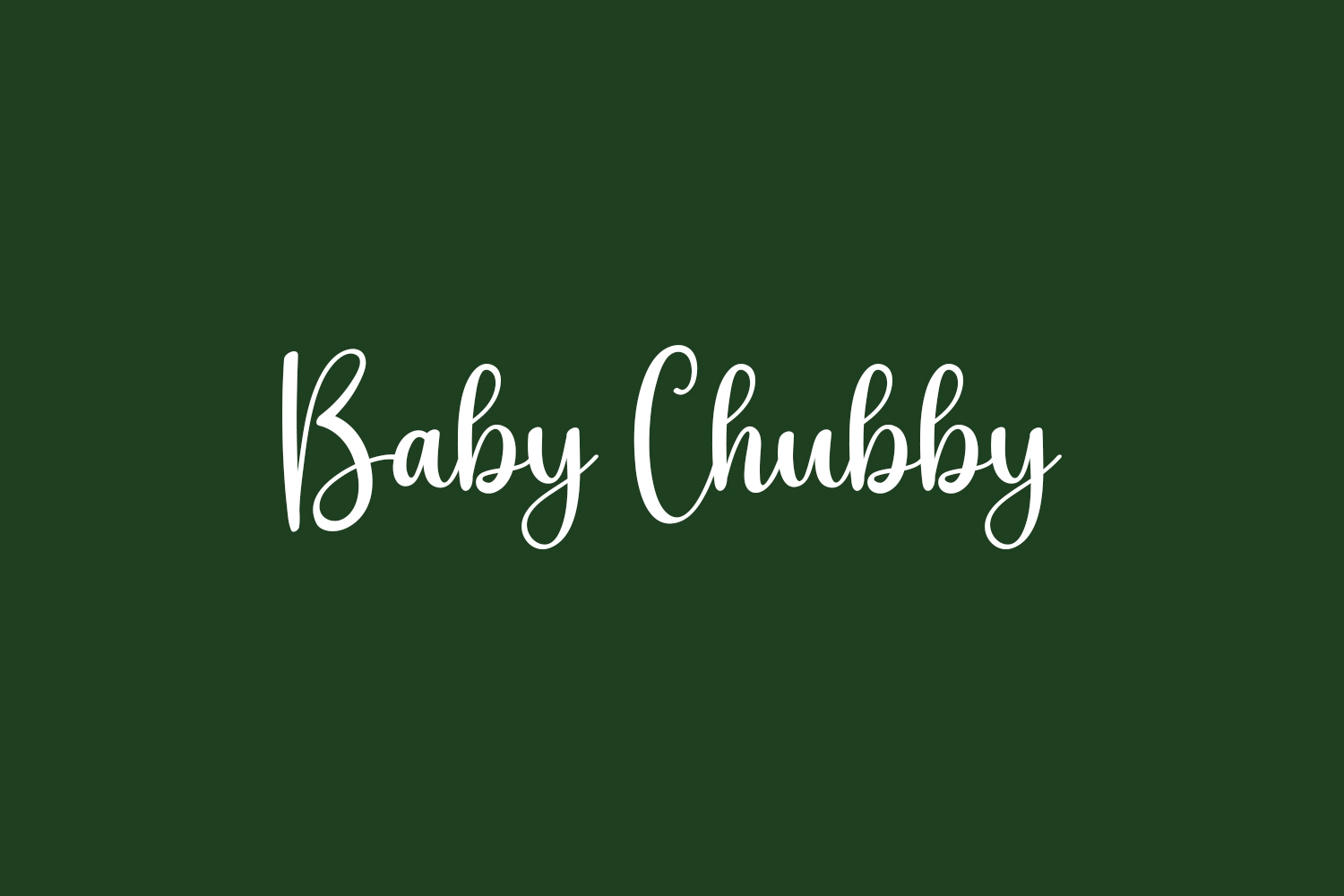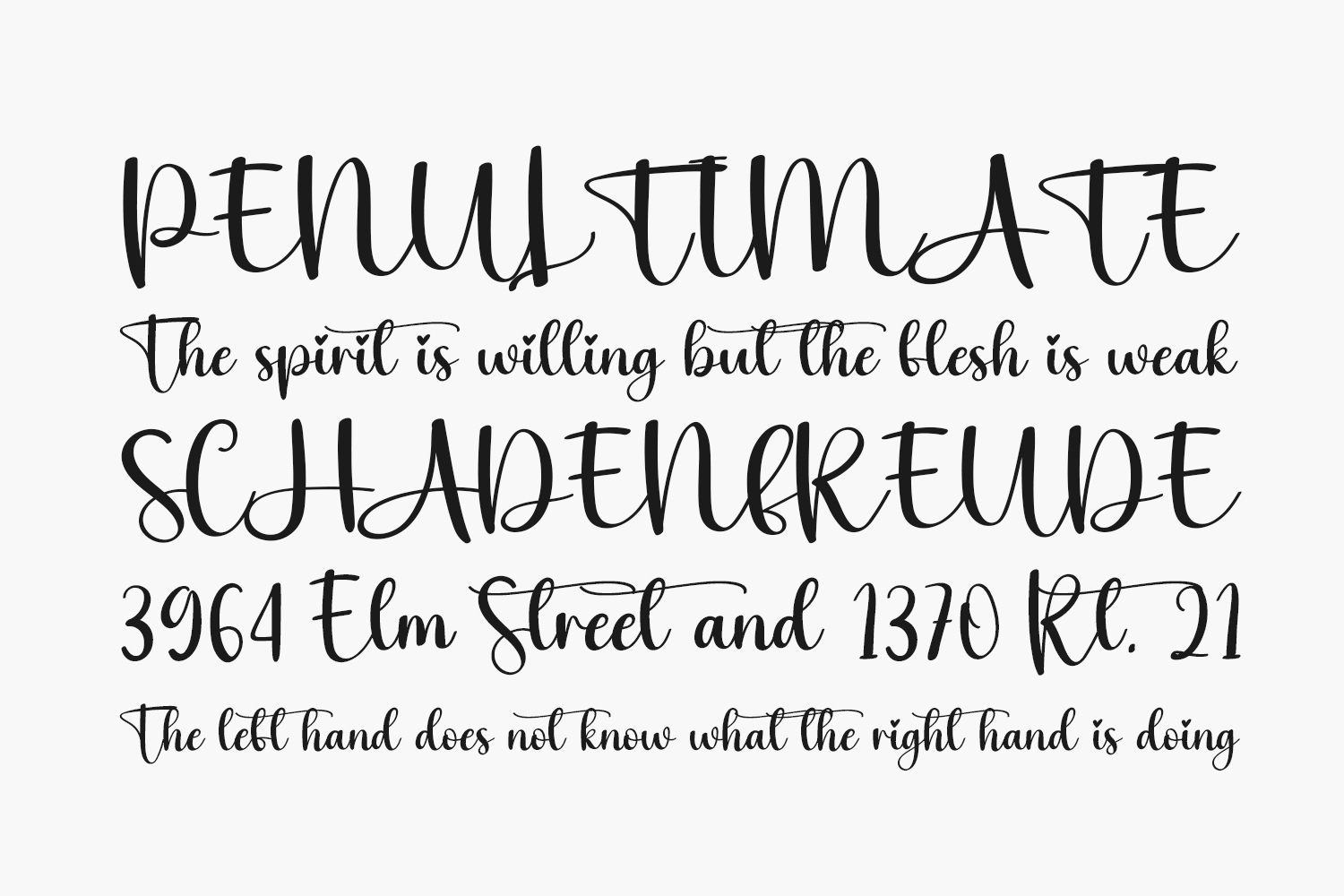
The most recent lettering style from Baby Chubby Free Font is ideal for showcasing on walls, wedding invites, social media post logos, ads, product packaging, product designs, labels, photography, watermarks, invitations, stationery, and any project in need of a personalized handwritten touch. Baby Chubby Free Font is free for personal use only. Please purchase the full version for commercial use.